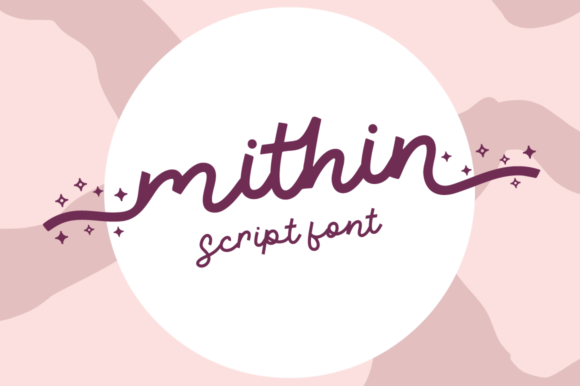
Adorn your designs with the enchanting Mithin Font, a creation of attypestudio, and unveil a world of elegance and charm. Mithin's graceful strokes, reminiscent of a calligrapher's artistry, will elevate your designs, transforming them into captivating masterpieces. Immerse yourself in the beauty of Mithin's flowing curves and intricate details, a testament to its timeless allure.
Mithin is not just a font; it's an expression of creativity, a whisper of sophistication, and a touch of luxury. Its meticulously crafted characters exude a sense of refinement, adding a touch of elegance to every word. Whether you're designing logos, branding materials, or creating heartfelt quotes, Mithin will make your designs shine, leaving an unforgettable impression on your audience.
Step into a realm of endless possibilities with Mithin, the ultimate font for modern websites. Its versatility knows no bounds, seamlessly adapting to a myriad of design aesthetics. From sleek and minimalist layouts to vibrant and eye-catching designs, Mithin will effortlessly elevate your website, captivating visitors and leaving them mesmerized.
Mithin is more than just a font; it's an experience. Its meticulously crafted characters, each a work of art, will transport you to a world of creativity and inspiration. Unleash your imagination and embark on a design journey like no other. Immerse yourself in the beauty of Mithin and let your designs flourish with its timeless charm.